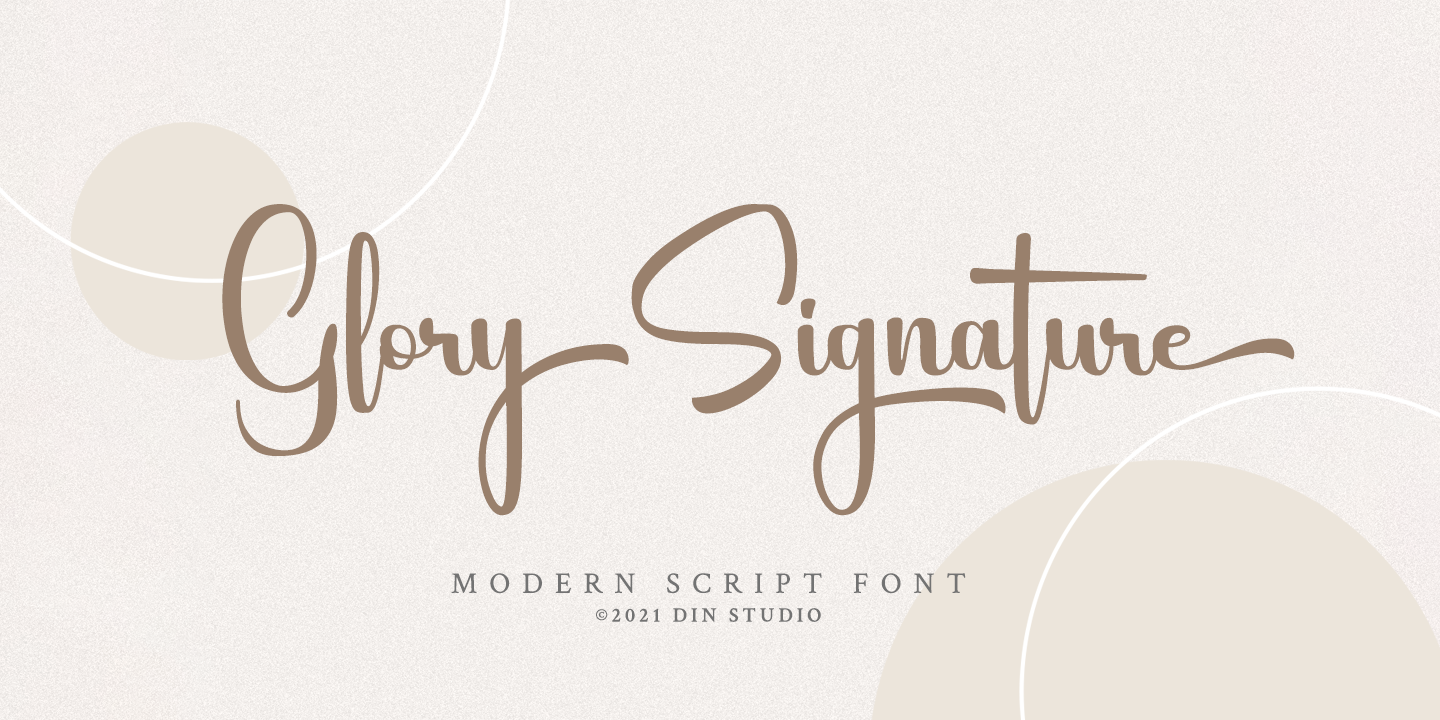
Glory Signature Font is ideal for prestigious design projects including luxury personal branding, executive signatures, high-end wedding invitations, exclusive event materials, personal brand consultancies, signature product lines, elite business cards, and distinguished marketing campaigns. This elegant typeface works perfectly for celebrity endorsements, executive coaching services, premium personal brands, luxury lifestyle consultants, and projects that celebrate individual achievement and personal excellence.
What makes Glory Signature Font exciting is its distinguished personal character that perfectly captures the essence of individual success and signature elegance. The font features flowing letterforms with handwritten sophistication that reflects the personal touch and exclusive authenticity of signature styling. Its prestigious design elements embody the spirit of personal achievement and individual distinction, making it perfect for projects that need to convey exclusivity, personal brand, and connection to signature excellence. The carefully crafted handwritten details create an atmosphere of personal prestige and signature sophistication.
Glory Signature Font comes in multiple family variations including elegant, personal, distinguished, and exclusive styles. Each weight maintains the distinctive signature character while offering different levels of personal intensity and prestigious presence. The font family includes signature alternates, personal ligatures, and exclusive variations that provide designers with comprehensive options for creating truly distinguished and authentically personal typographic compositions that celebrate individual excellence.
Whether you're designing personal branding, creating prestigious marketing materials, or developing exclusive promotional graphics, Glory Signature Font Free Download provides the perfect typographic foundation for projects that celebrate personal excellence and signature distinction. This remarkable typeface transforms ordinary text into compelling expressions of individual achievement and personal sophistication. Download this distinguished font today and sign your design projects with the personal elegance and signature prestige that captures the essential spirit of individual success and exclusive personal branding.